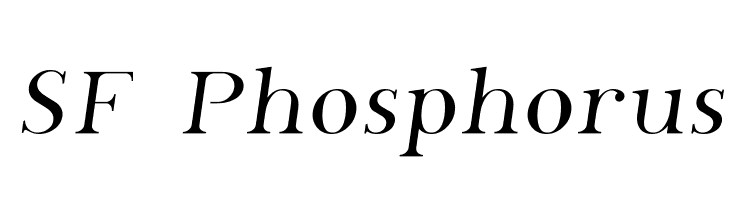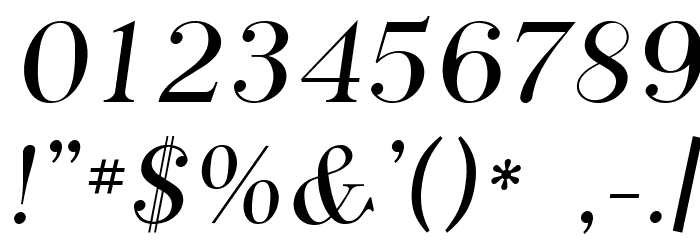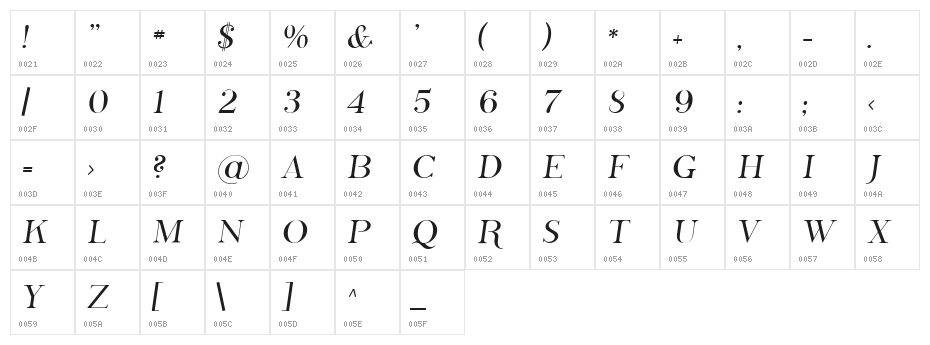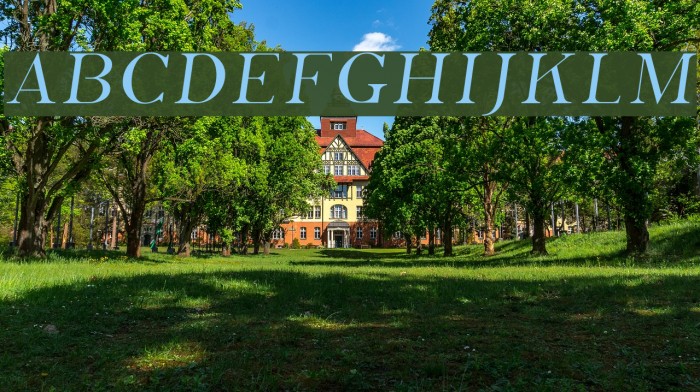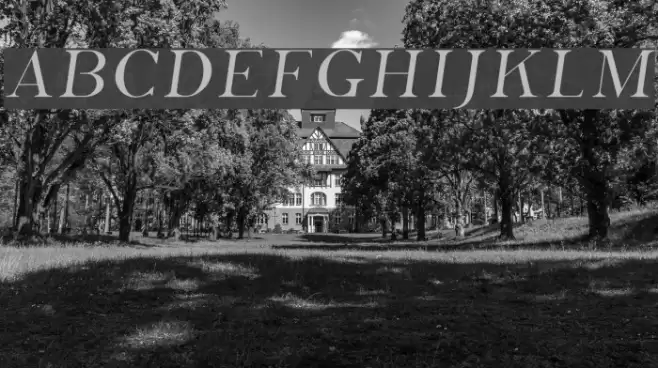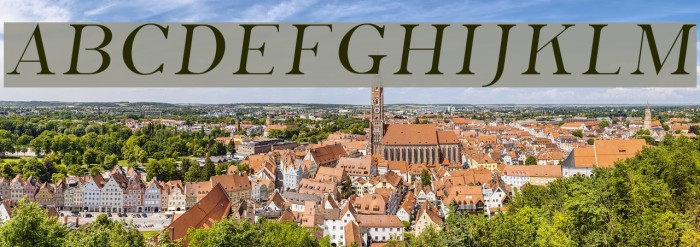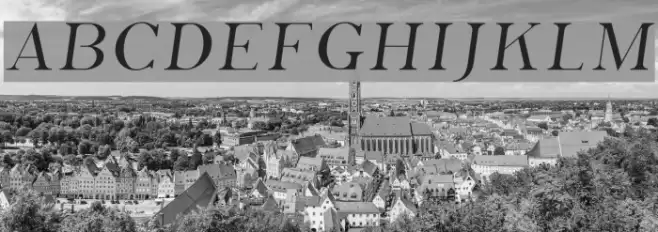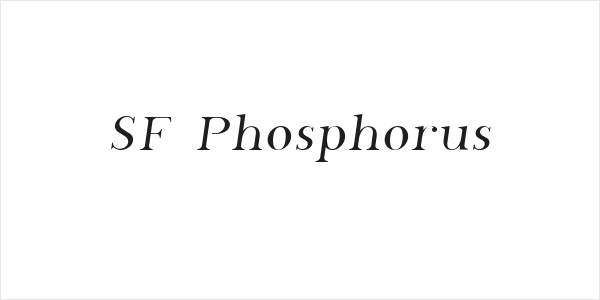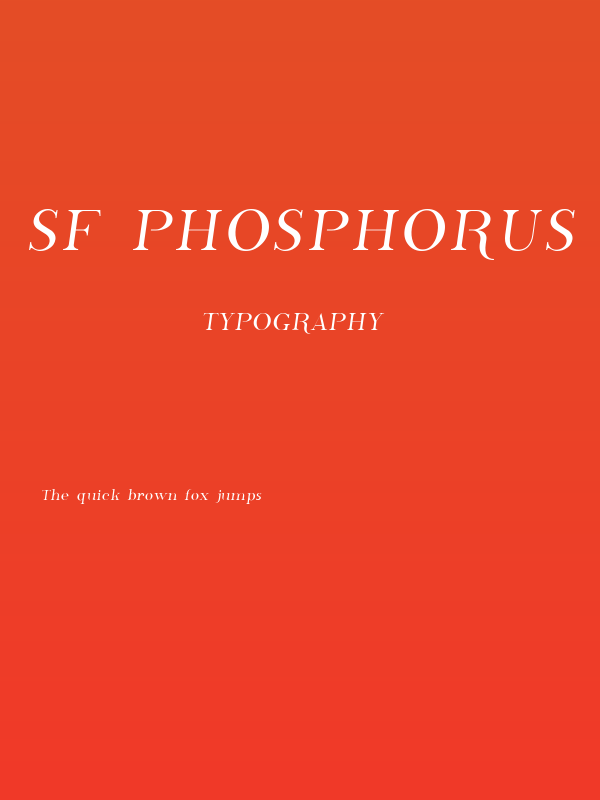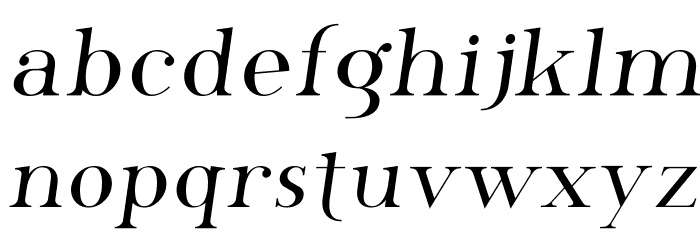
SF Phosphorus Font
SF Phosphorus Description
This font features elegant, flowing lines with a distinct slant, giving it a sophisticated and dynamic appearance. The uppercase letters are tall and slightly condensed, while the lowercase letters maintain a consistent flow with smooth curves. The numerals are well-proportioned, complementing the overall style. Special characters are designed with the same attention to detail, ensuring a cohesive look across all glyphs. The font's high contrast between thick and thin strokes adds to its refined aesthetic, making it suitable for formal and stylish applications.